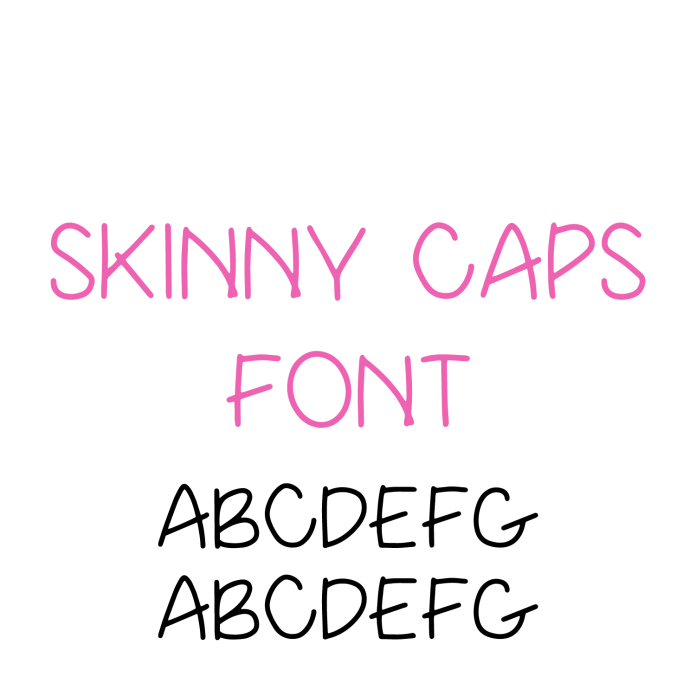
Add personality to your crafts with Skinny Caps Font – a simple, hand-drawn all-caps font made with clean, thin lines. This easy-to-cut design is perfect for minimalist projects, vinyl decals, t-shirts, labels, planners, and signs. Its lightweight and modern look makes it ideal for creating a casual, playful vibe while keeping your design clean and readable. Whether you're crafting for fun or business, Skinny Caps Font brings a touch of charm and simplicity to any handmade project. Great for cutting machines and printable use, it’s a go-to font for crafters who love neat, quirky, and straightforward letter styles.